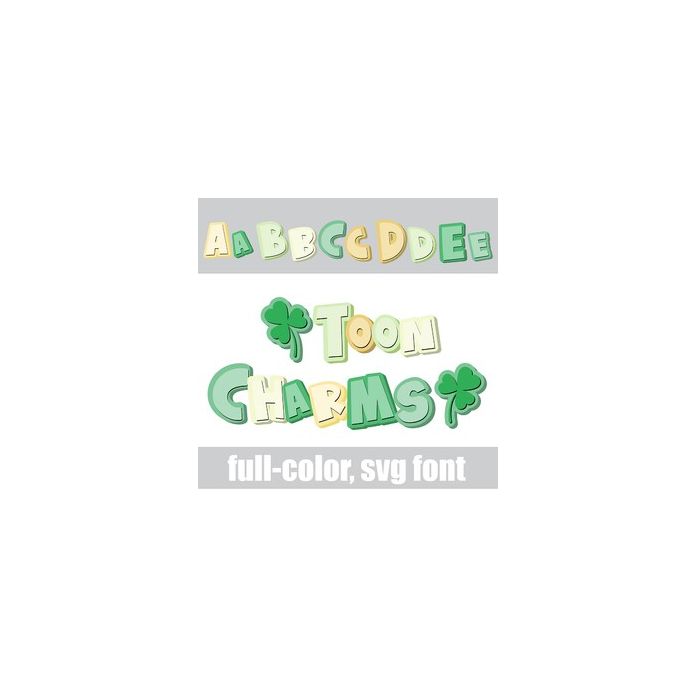
This full-color font features a comic-style font in a green color palette. Access the cute, shadowed clover by typing the greater than and less than glyphs. There is an alt case w/ additional colors you can access through your system or Silhouette's glyph map.